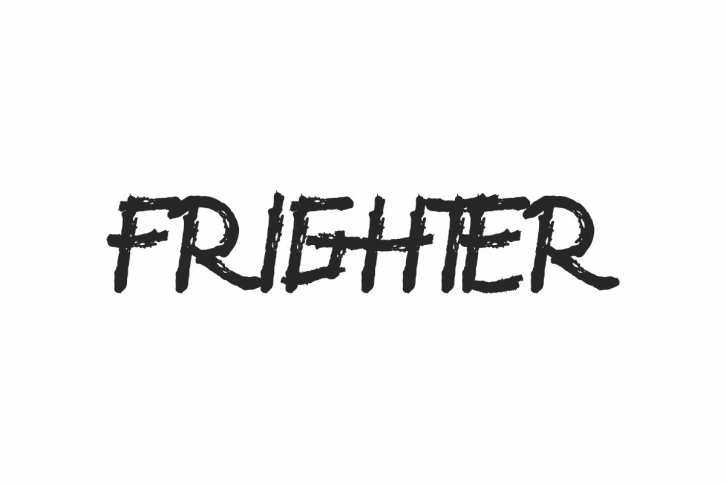
frighter is a trendy and unique font with an authentic style. It was designed by NihStudio and it's a great choice for creative people who need such a font. It was released on August 21, 2020 and the file size is 13.9 MB. frighter will add an organic vibe to any design idea!